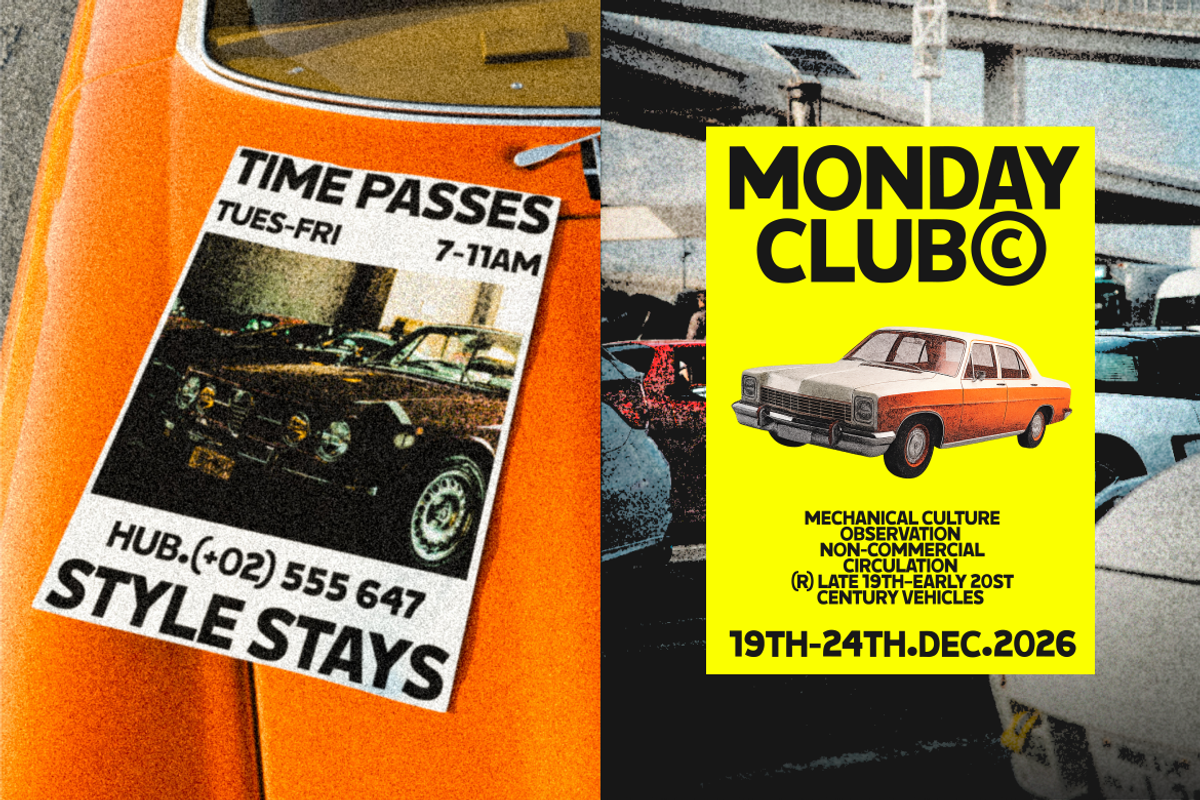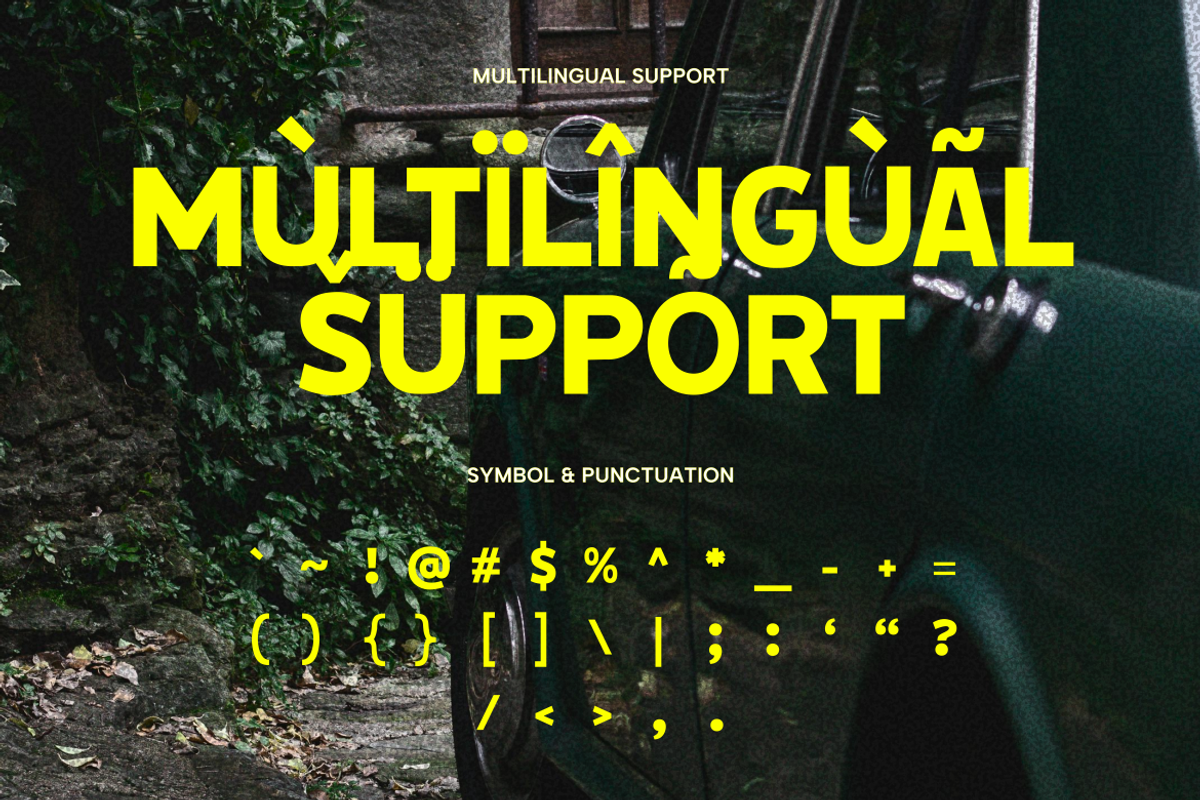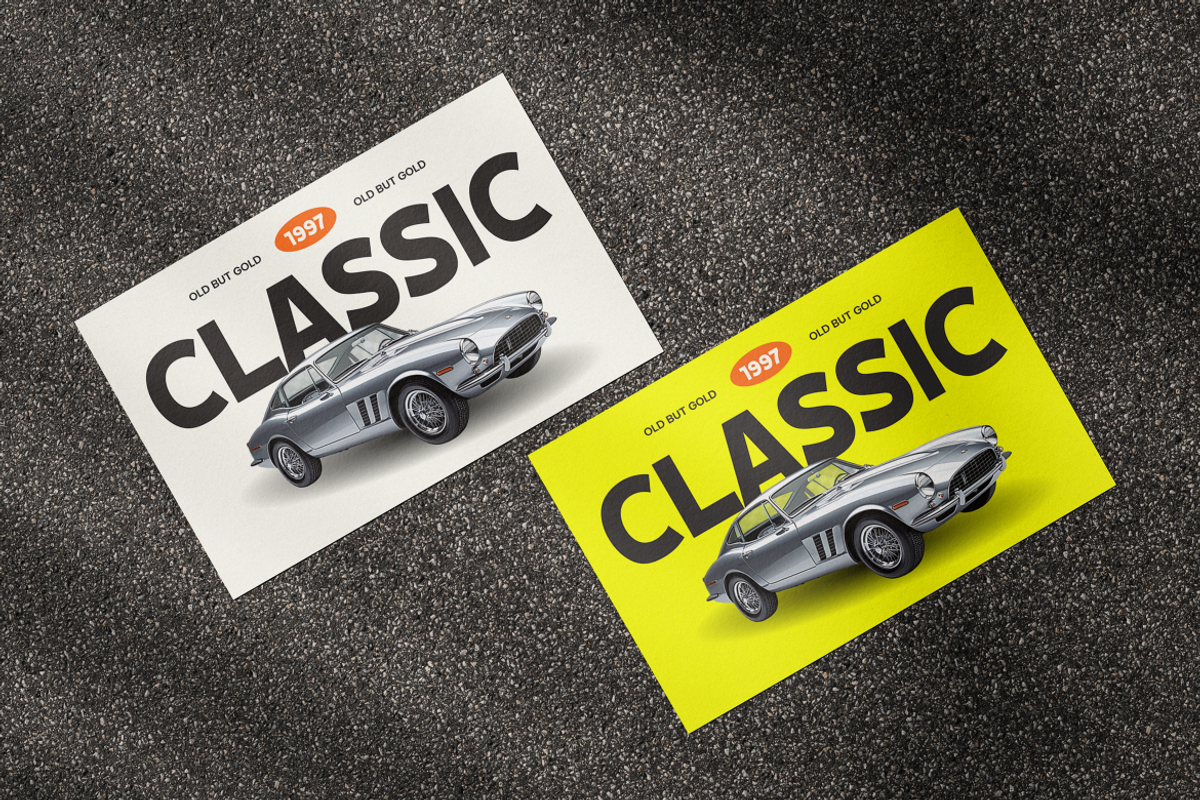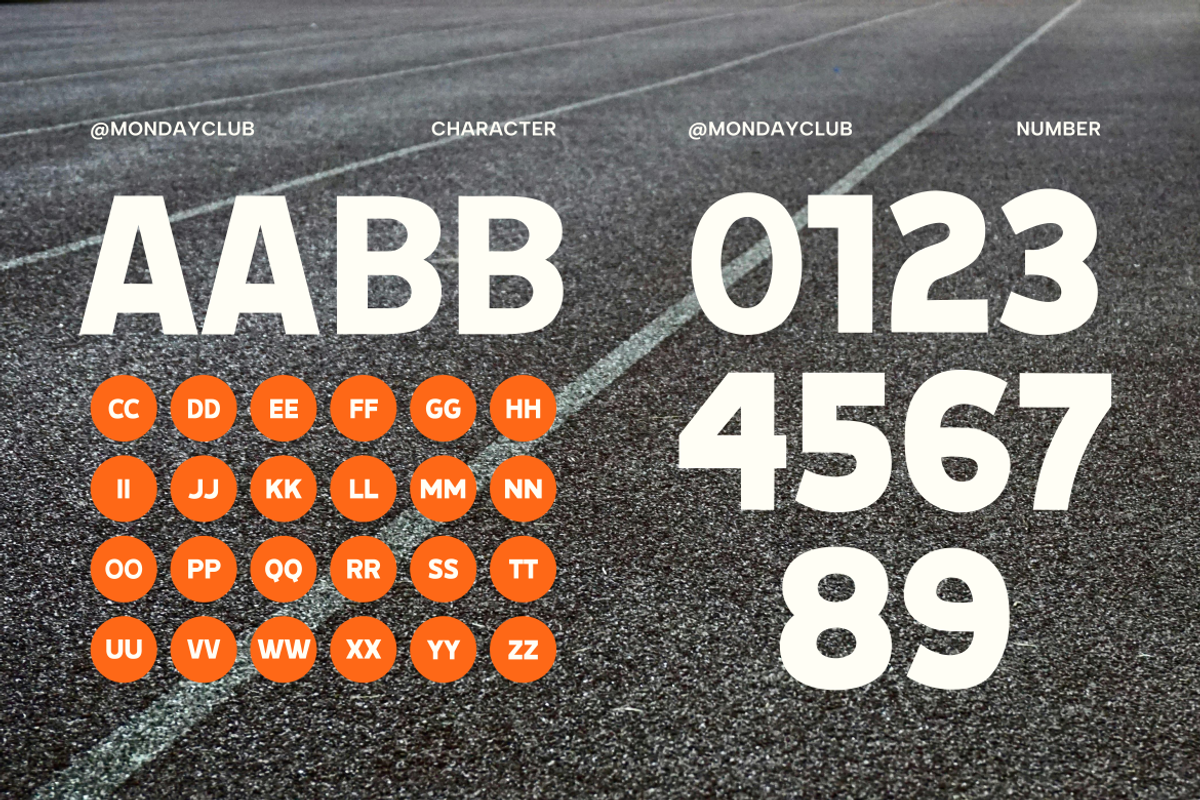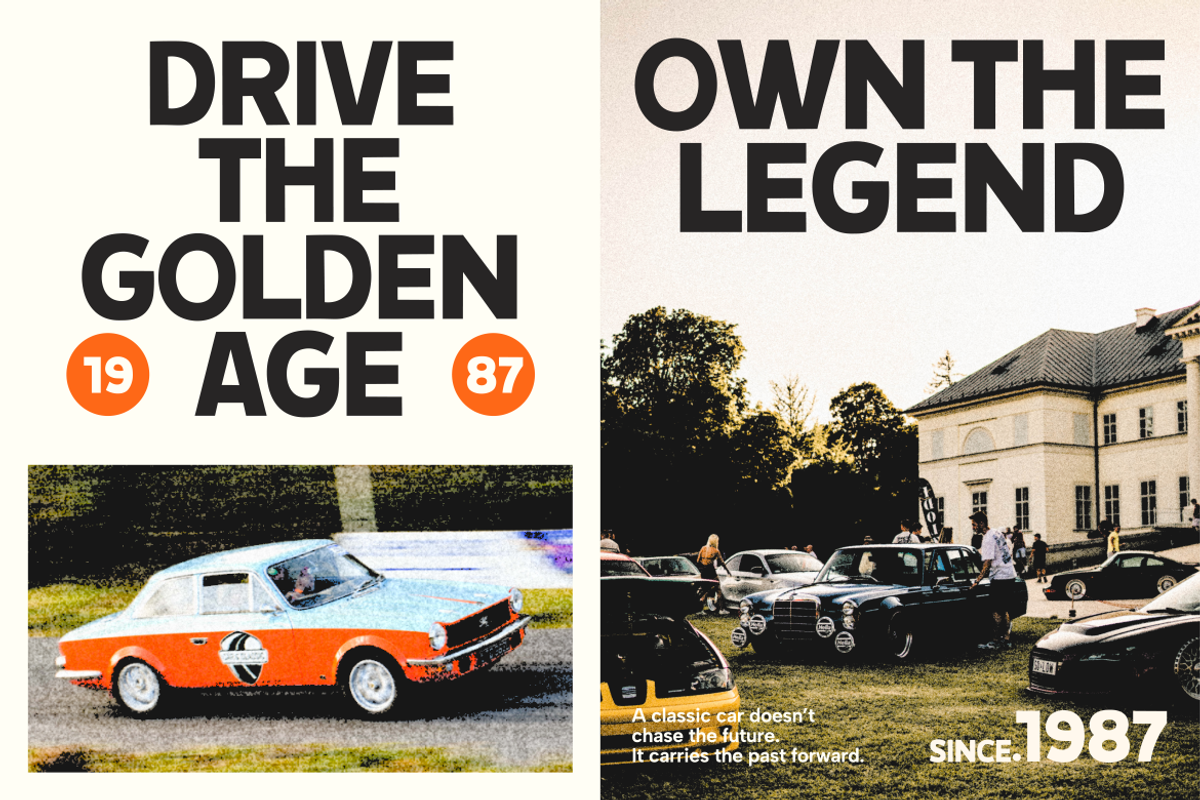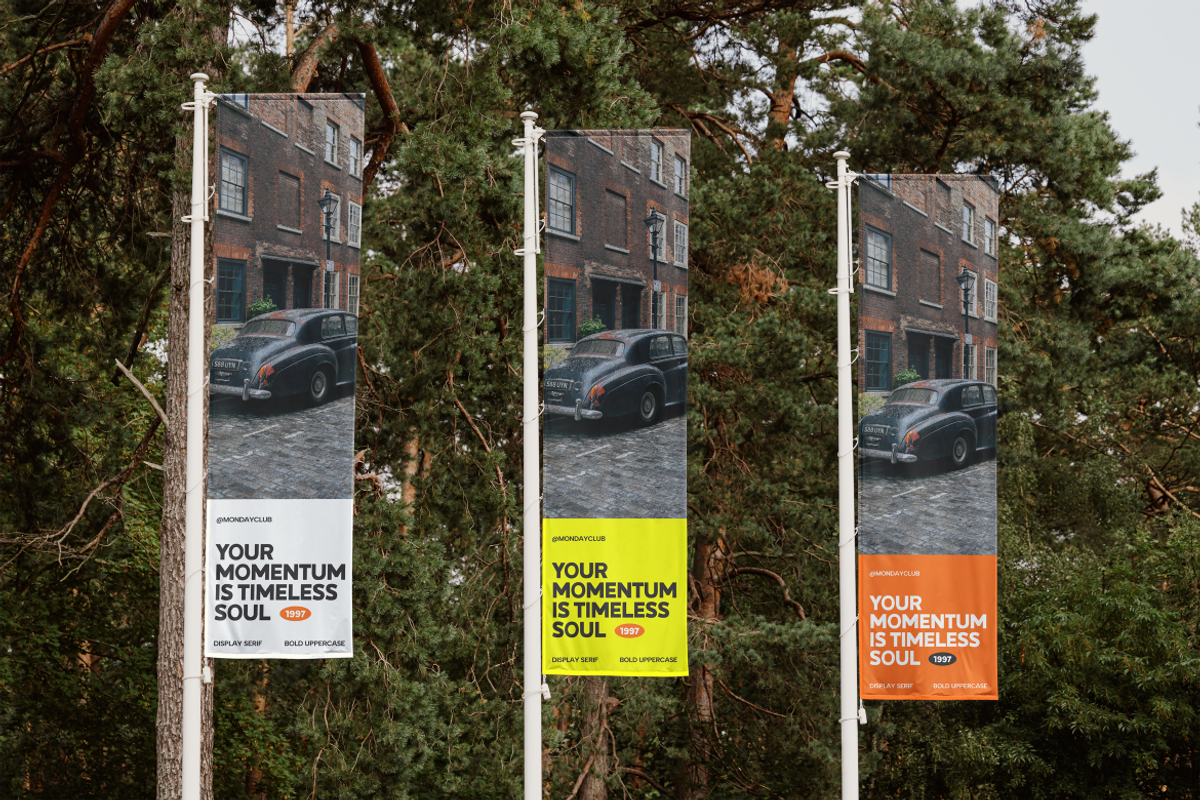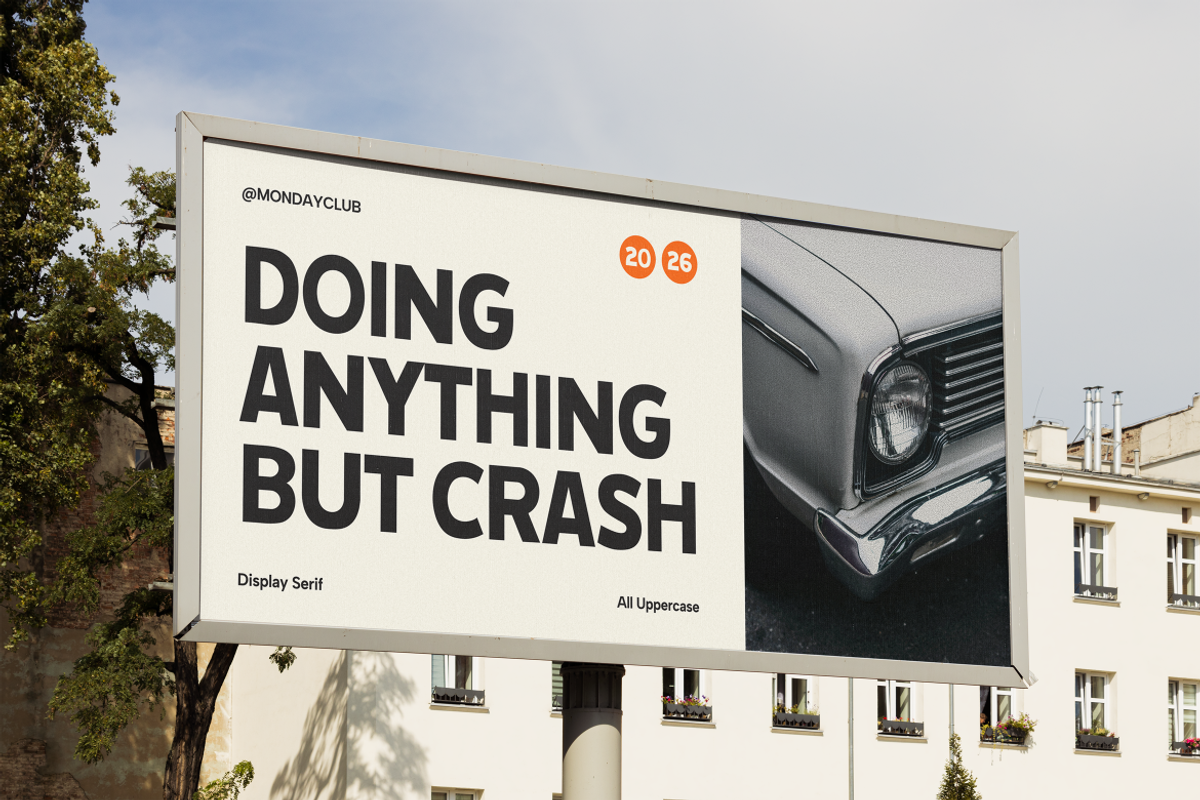
Monday Club - Display Font
Monday Club is a bold, modern display font designed for strong headlines and confident branding. With clean shapes and a powerful weight, it's perfect for posters, sports designs, logos, packaging, and editorial layouts. This font delivers impact, clarity, and versatility across digital and print projects.